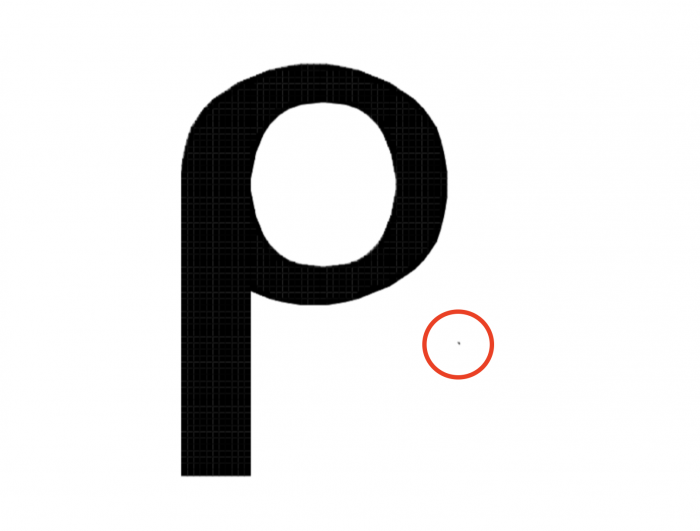
• Tylluan   (Welsh) = owl (English)
Having looked at this font to add glyphs for the language one of my friends uses I decided to change some of the original glyphs, for the fun of change ;) ....... if you saw, remember and now hope to download the original basic English version: sorry, it's out of circulation unless I decide to remove the asked-for glyphs/shapes in this version so that you can DL the new basic Enlish version with support for my language and some fun dingbats. This particular upgraded version of Tylluan won't be downloadable unless the 'owner' of it allows me to offer it to FS members .
I changed some curves, improved the e-mail symbol, added curved blocks and glyphs for some European languages including Welsh (( RAY if you want to use this DO let me know here via PM !!!)) You'll also see the Eiron :=  aka. interrobang (en), exclarrogatif (fr), Fragerrufzeichen (de) and some asked-for dingbats
This font looks pretty nice. It would also benefit from the inclusion of the UC and LC Ẁ, Ẃ, Ẅ, and Ỳ as Welsh also uses those letters for its language. 10 out of 10.
Congrats on the TP! Btw, there is an extra brick on the right side of your P.
@BWM: thank you for that information, I've added them :) @ Elmo: well spotted and indicated, thank you! I've managed to see it on my small screen and removed it :)
The design is unique and equally amazing, I really like your lowercase g.